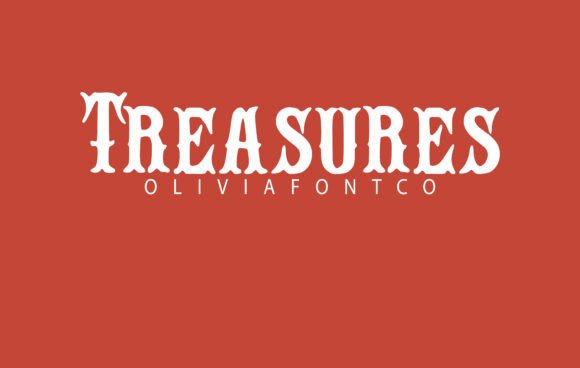
Treasures Font: Romantic Handwritten Style for Crafters
As a small business owner constantly searching for that perfect typeface to elevate my product line, I have found that Treasures is an authentic handwritten font with a romantic touch that instantly transforms ordinary designs into premium keepsakes. While categorized uniquely within the broader landscape of Slab Serif and decorative Fonts, this specific typeface bridges the gap between structured legibility and organic warmth. For those of us creating physical goods, digital downloads, or client work, finding a font that feels personal yet professional is the holy grail of design. Treasures delivers this balance expertly, offering a visual voice that speaks directly to customers looking for handmade quality and emotional connection in every letterform.
Treasures for Wedding Stationery and Romantic Invitations
When designing for the wedding market, Treasures serves as an authentic handwritten font with a romantic touch that perfectly captures the intimacy couples want for their big day, distinguishing it from standard script Fonts often overused in the industry. Unlike many overly ornate scripts that become illegible at smaller sizes, this typeface maintains clarity while delivering that coveted hand-lettered aesthetic essential for modern stationery. I have used this style extensively for wedding welcome signs, seating charts, and invitation suites where readability is just as important as beauty. The letterforms possess a natural flow that mimics real penmanship without the chaotic inconsistencies that can plague lesser quality handwritten assets.
For printable creators focusing on bridal niches, this font allows you to offer templates that look bespoke rather than mass-produced. It works exceptionally well for names and headers on place cards, menu designs, and favor tags. Because it carries the structural weight associated with Slab Serif influences, it holds up beautifully when printed on textured cardstock or linen paper. This durability in print makes it a reliable choice for products that need to withstand handling during events. When pairing it for wedding suites, I recommend combining it with a clean, minimalist sans serif for body text to let the romantic personality of the primary typeface shine without overwhelming the reader.
Creating Emotional Connection Through Authentic Typography
The true power of using Treasures in wedding projects lies in its ability to evoke emotion through authentic handwritten details that feel intentional and cherished. Customers are not just buying ink on paper; they are purchasing a feeling, and this font delivers that sentimental value through every curve and stroke. It avoids the sterile perfection of digital fonts while maintaining the commercial polish required for high-end stationery businesses. This emotional resonance is what turns a one-time buyer into a repeat customer who trusts your eye for design.
Treasures for Handmade Product Labels and Packaging Design
Small shop owners will appreciate how Treasures functions as an authentic handwritten font with a romantic touch specifically suited for product labels, setting it apart from generic display Fonts that lack brand personality. Whether you are labeling soy candles, artisan soaps, boutique clothing tags, or specialty food jars, this typeface adds a layer of perceived value that justifies premium pricing. The strokes are substantial enough to remain crisp when scaled down for 2-inch round stickers or narrow jar labels, addressing a common pain point for crafters who struggle with thin scripts that disappear during printing or cutting.
In packaging design, consistency builds brand recognition, and this font provides a versatile foundation for cohesive product lines. Its unique position near the Slab Serif category means it has enough anchor and weight to serve as a primary logo wordmark or a secondary accent on hangtags. I have found it particularly effective for farmhouse-style home decor, vintage-inspired cosmetics, and eco-friendly lifestyle products where the "handmade" aspect is a key selling point. When designing for Cricut or Silhouette machines, the robust nature of the letterforms ensures clean cuts on vinyl and adhesive paper, reducing weeding time and material waste compared to more fragile script alternatives.
Treasures for Digital Printables and Wall Art Templates
Digital download sellers can leverage Treasures as an authentic handwritten font with a romantic touch to create best-selling wall art and planner assets that stand out in crowded marketplace searches for unique Fonts. In the realm of digital products, typography is the product itself, and this typeface offers the versatility needed for diverse niches from nursery decor to motivational office prints. Its inherent charm translates perfectly to screen viewing and home printing, ensuring that customers achieve gallery-worthy results even with standard consumer printers. The font’s structure, hinting at Slab Serif stability, prevents it from looking too fleeting or informal for framed art pieces intended for permanent display.
For template creators on platforms like Canva or Corjl, integrating this font adds immediate value to editable designs. Buyers are constantly seeking fresh typography that doesn't look like the default options, and Treasures fills that gap beautifully. It works wonderfully for daily affirmations, bible verse prints, seasonal greetings, and personalized family name signs. When designing these assets, consider the hierarchy; use this font for the focal phrase and pair it with a simple geometric sans serif for dates or subtitles. This contrast enhances readability and guides the viewer’s eye, making your templates more user-friendly and commercially viable.
Optimizing Readability for Commercial Craft Projects
While aesthetics draw customers in, readability closes the sale, and Treasures excels by balancing artistic flair with functional clarity across various Fonts applications. As makers, we must ensure our designs are accessible and legible at a glance, especially for signage and quick-reference items. This typeface achieves this through open counters and distinct character shapes that prevent letters from blurring together at smaller sizes. Always test your designs at actual print size before listing them; what looks beautiful on a 27-inch monitor may need adjustment for a 4x6 inch card. This practical diligence ensures customer satisfaction and reduces support requests regarding file usability.